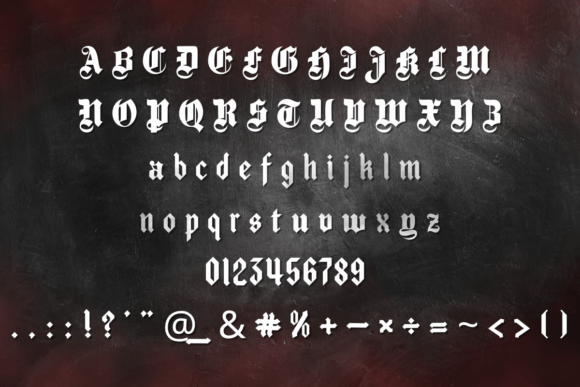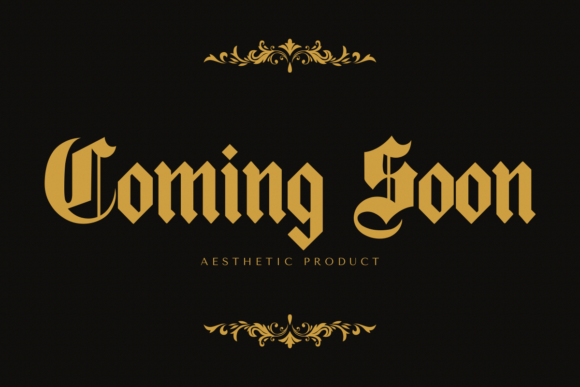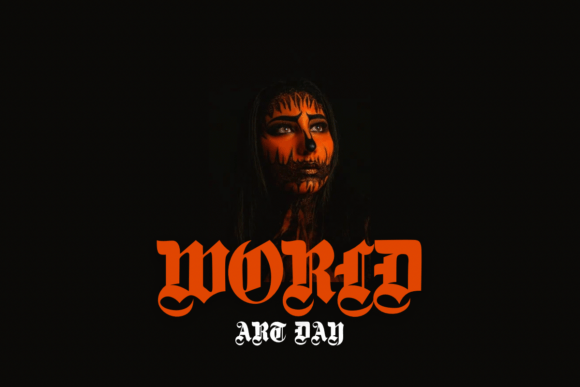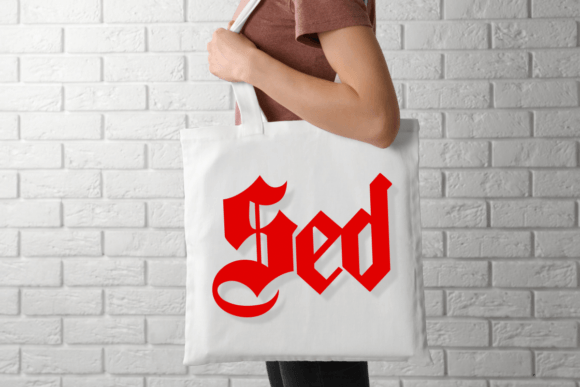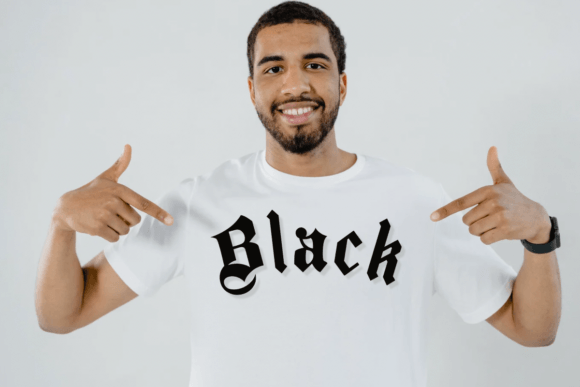
The Power of Black Old English Font: A Designer’s Best Friend
I’ll never forget the time I was working on a project for a client who wanted a bold, medieval-inspired font to set the tone for their brand. I scoured the internet, tried countless fonts, but nothing seemed quite right. That was until I stumbled upon the Black Old English font. It was like a lightbulb went off – this was the one! In this article, I’ll share my love for this font, its features, and how to make the most of it in your designs.
• ✨ **Bold and Thick Lettering**: Black Old English is a bold and thick lettered blackletter font that commands attention.
• ✅ **PUA Encoded**: This font is PUA encoded, which means you can access all of the glyphs and swashes with ease!
• 💻 **Versatile**: Perfect for a variety of projects, from medieval-themed designs to modern, edgy looks.
While Black Old English is an amazing font, there are a few things to keep in mind:
• 🤔 **Limited Use Cases**: Due to its bold and thick lettering, this font might not be suitable for body text or long paragraphs.
• ⚠️ **Legibility**: At smaller font sizes, some of the intricate details may be lost, making it harder to read.
The story behind Black Old English is one of passion and dedication. The font was created by a team of designers who wanted to bring back the classic, medieval look to modern designs. Inspired by ancient manuscripts and illuminated texts, they crafted a font that would evoke the feeling of history and tradition.
A: PUA (Private Use Area) encoding allows font creators to include additional glyphs and swashes that can be accessed easily.
Q: Is Black Old English suitable for body text?
A: Due to its bold and thick lettering, Black Old English is not ideal for body text or long paragraphs. It’s best used for headings, titles, or short phrases.